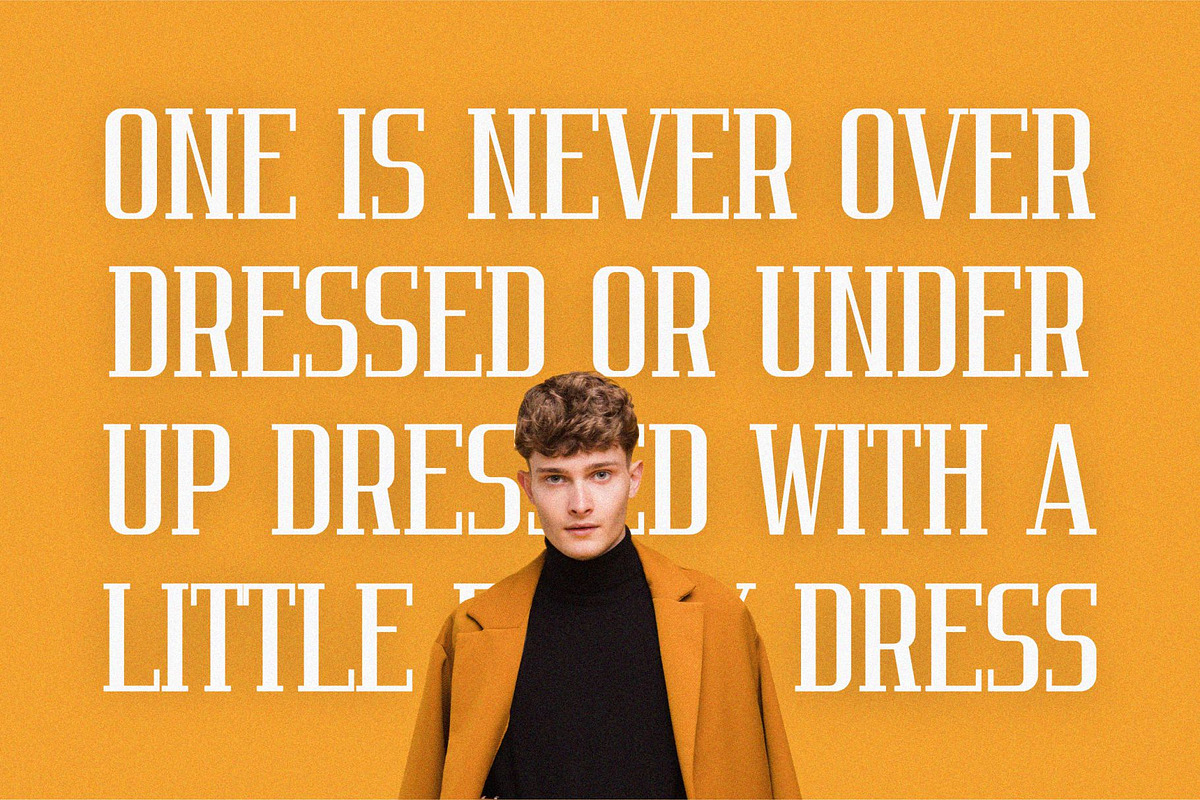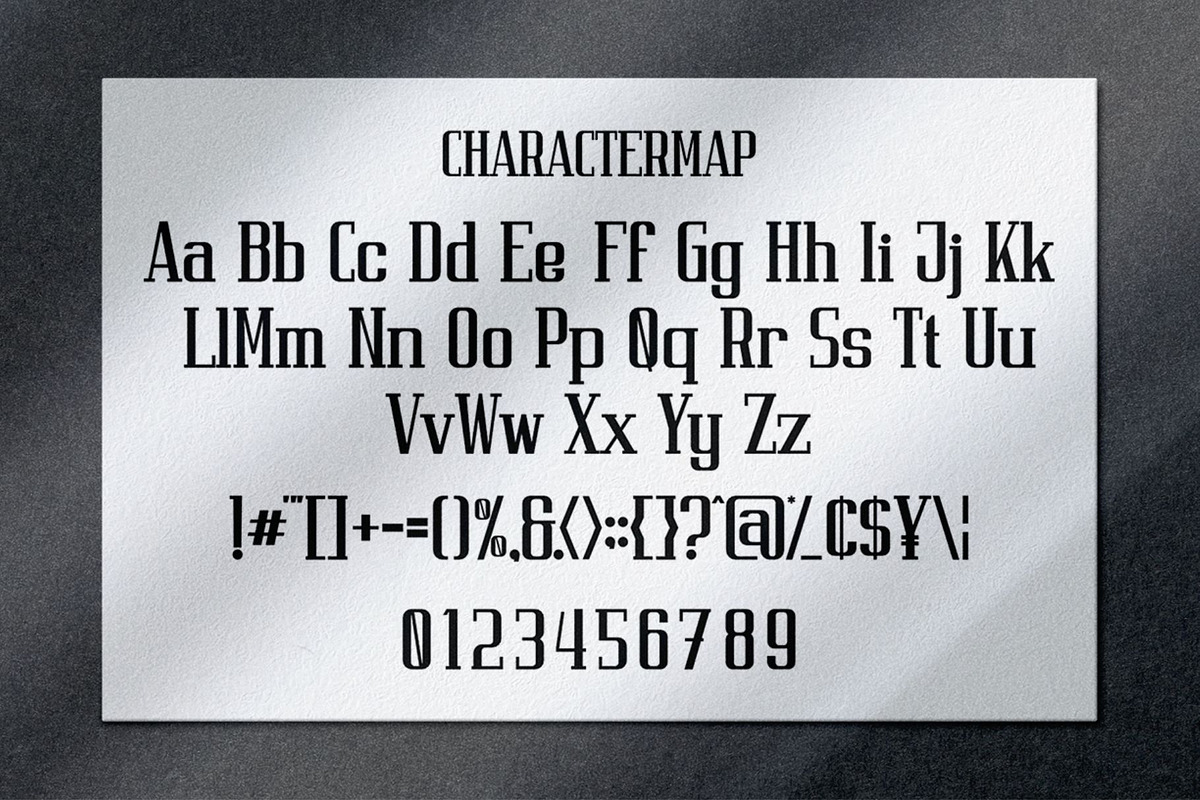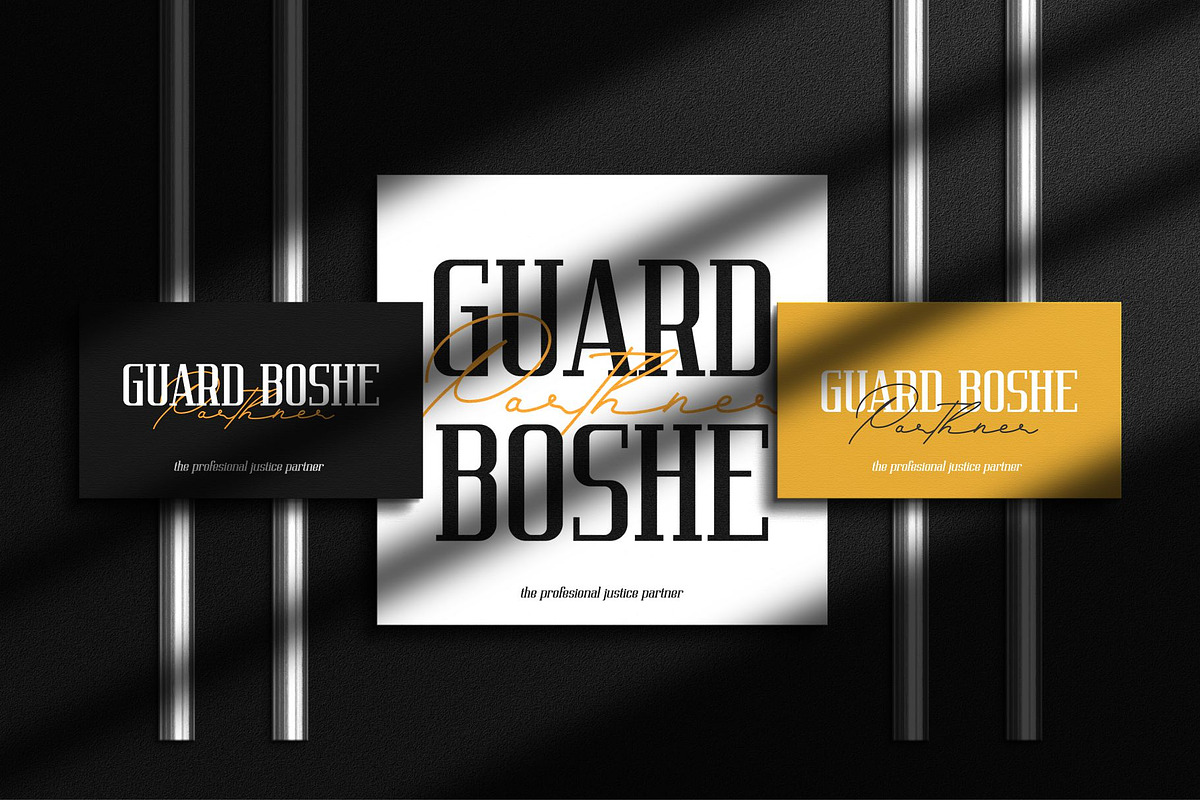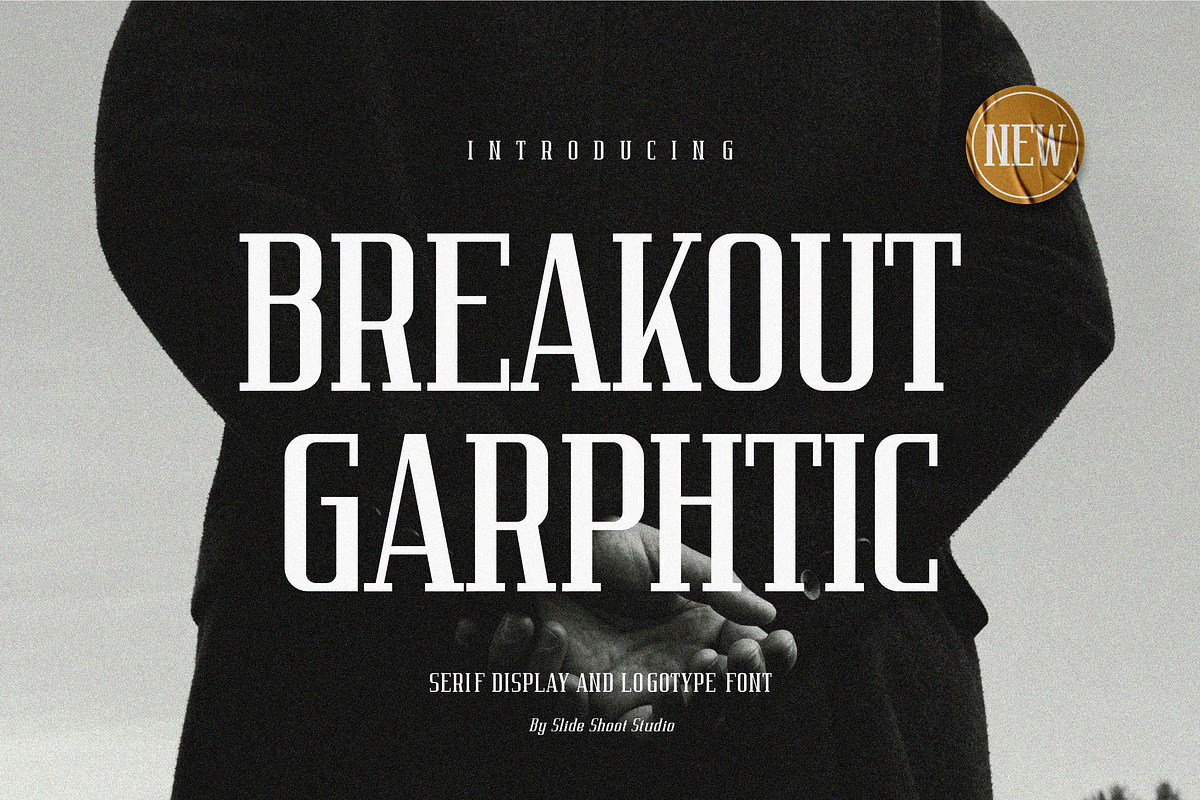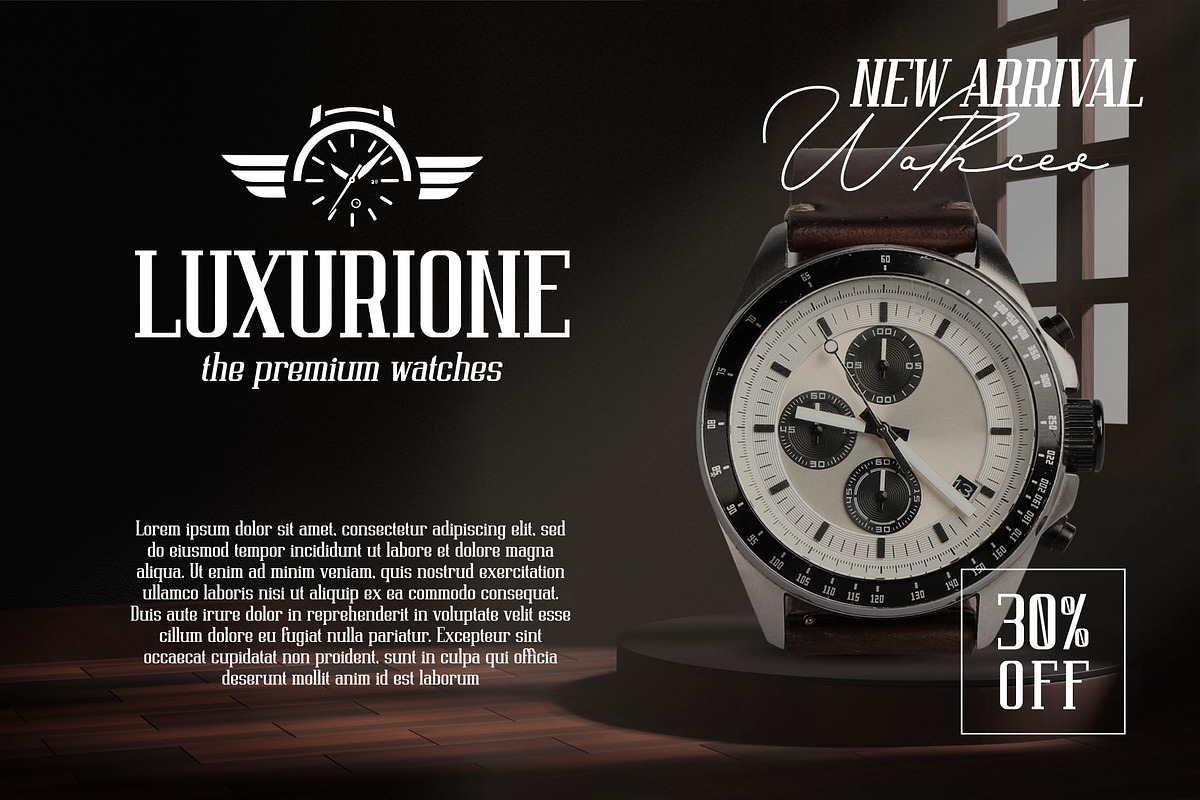
Breakout Graphtic || Serif Display
Breakout Graphtic is a condensed serif font with elegant and modern feels. It will be perfectly used for Branding, Logo Design, Lettering, Logotype, Clothing, Poster, magazine, packaging, posters, shopping bags, t-shirts, book covers, photography, special events and other design project.